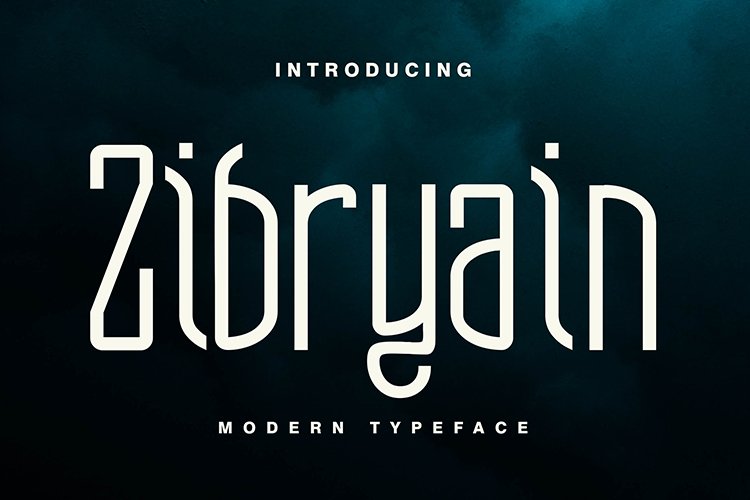
Zibryain is a unique display font. Zibryain font is perfect for designing company logos, online game logo, magazine covers, biographical book covers, business cards and all your design work, of course. to be more attractive in appearance.